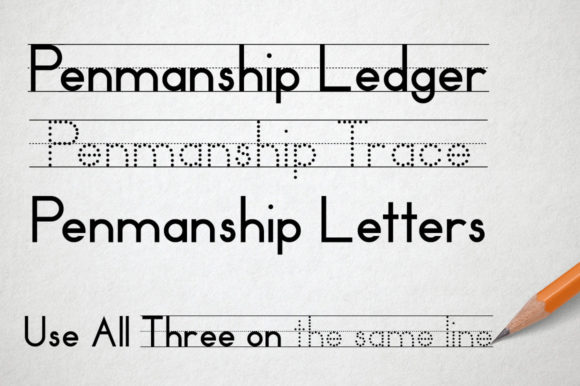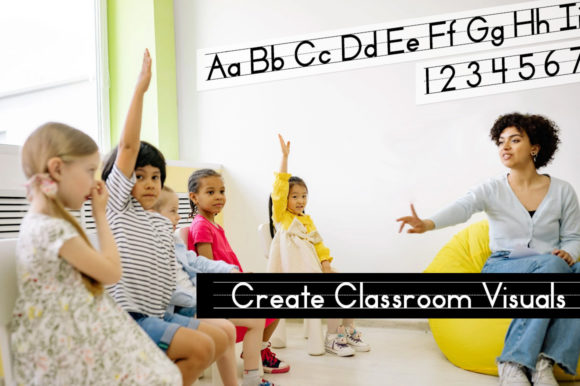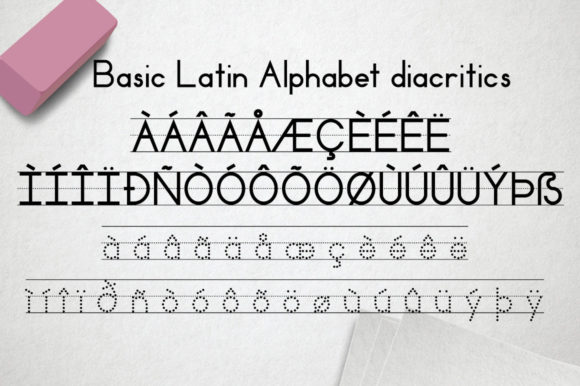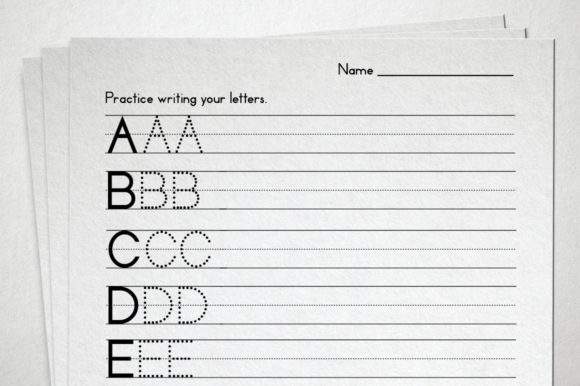
Introduction to Penmanship Family Font
Penmanship Family is a cool display font.
Key Features of Penmanship Family Font
Why Choose Penmanship Family Font?
Penmanship Family Font offers exceptional quality and versatility, making it a valuable addition to your design toolkit. Whether you’re creating for personal projects or commercial use, Penmanship Family Font delivers professional results.